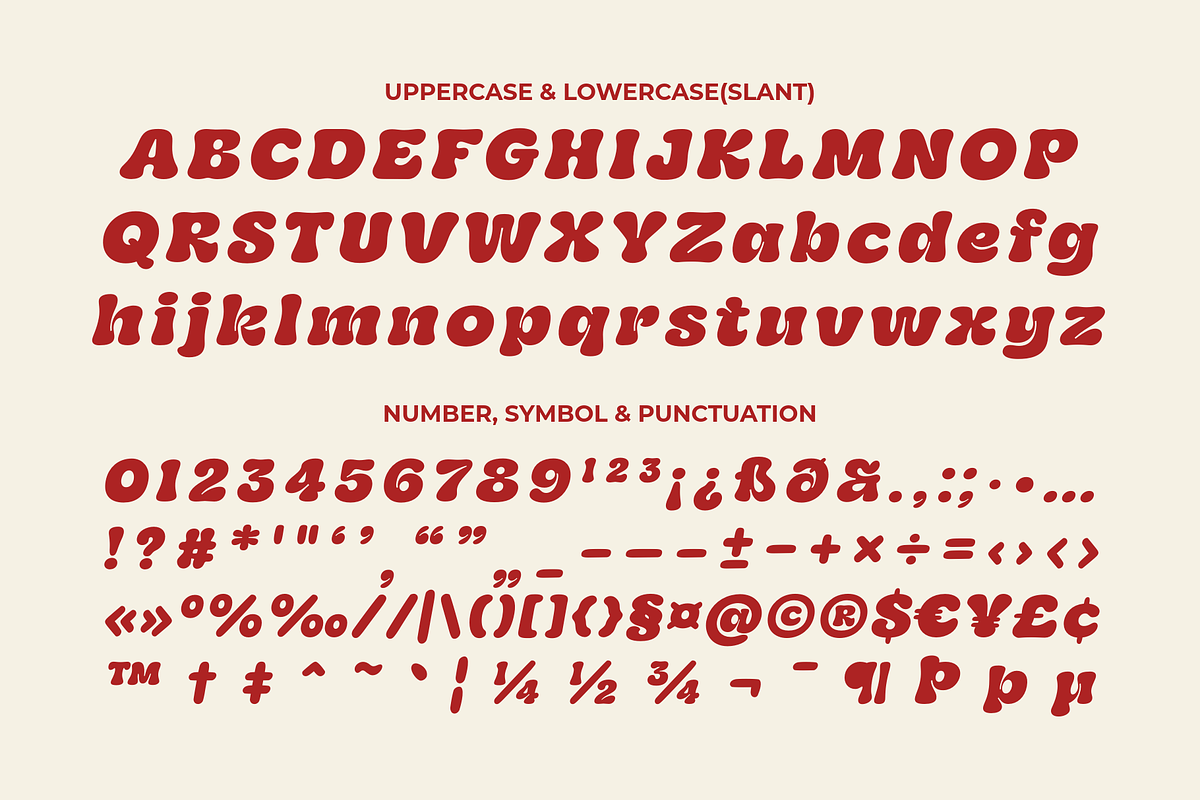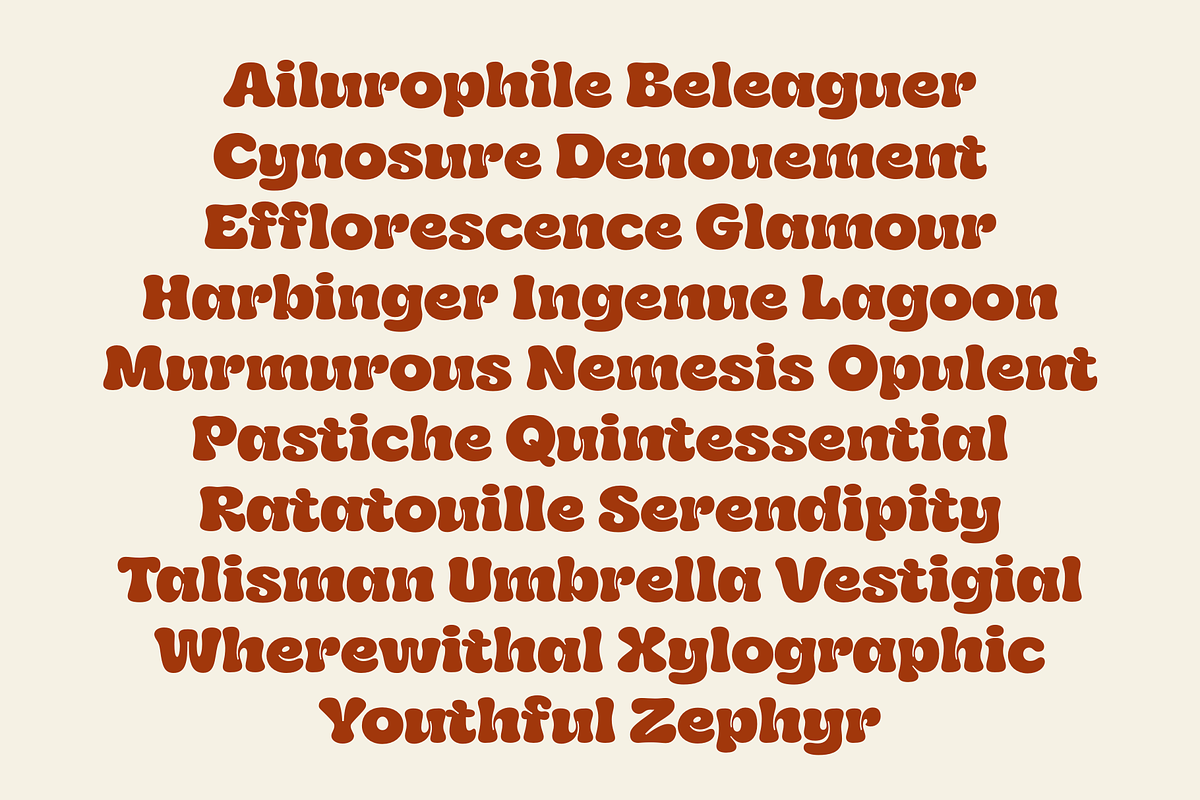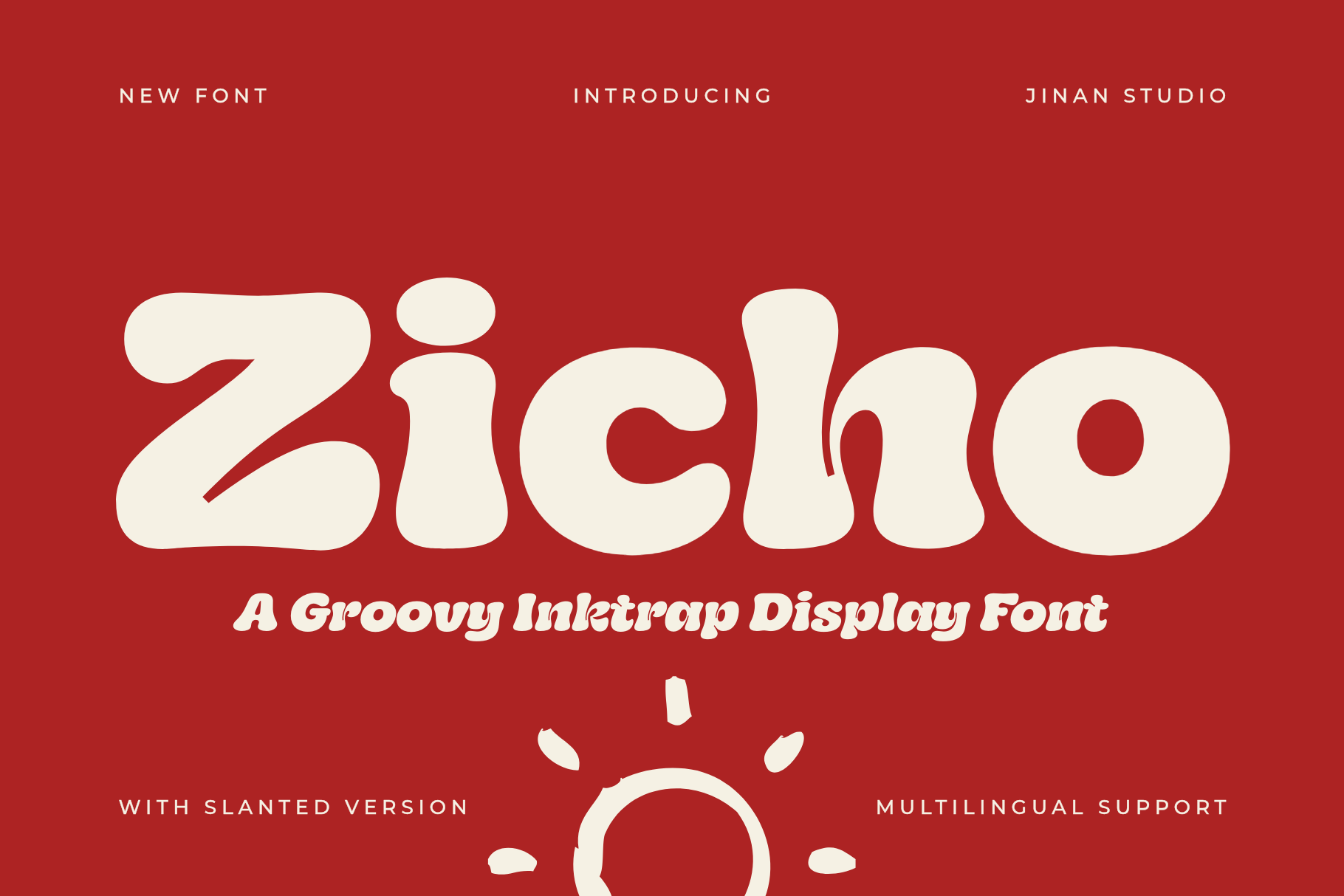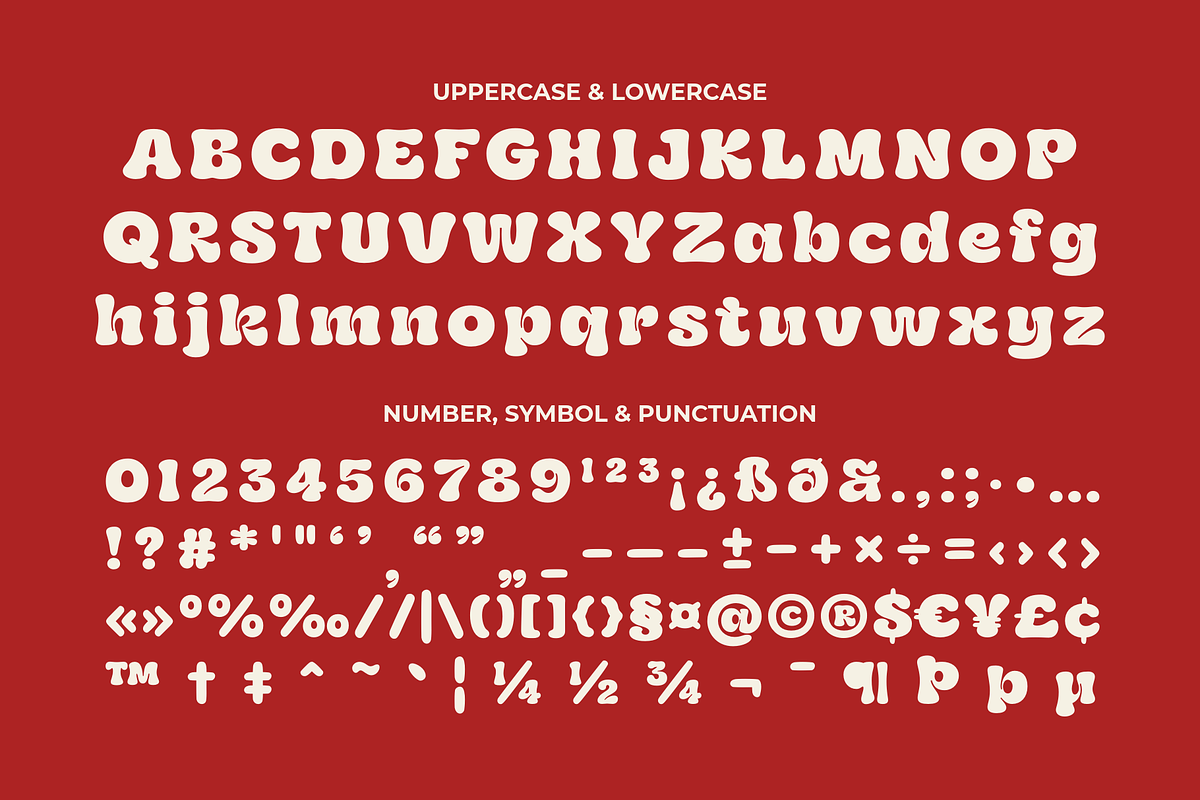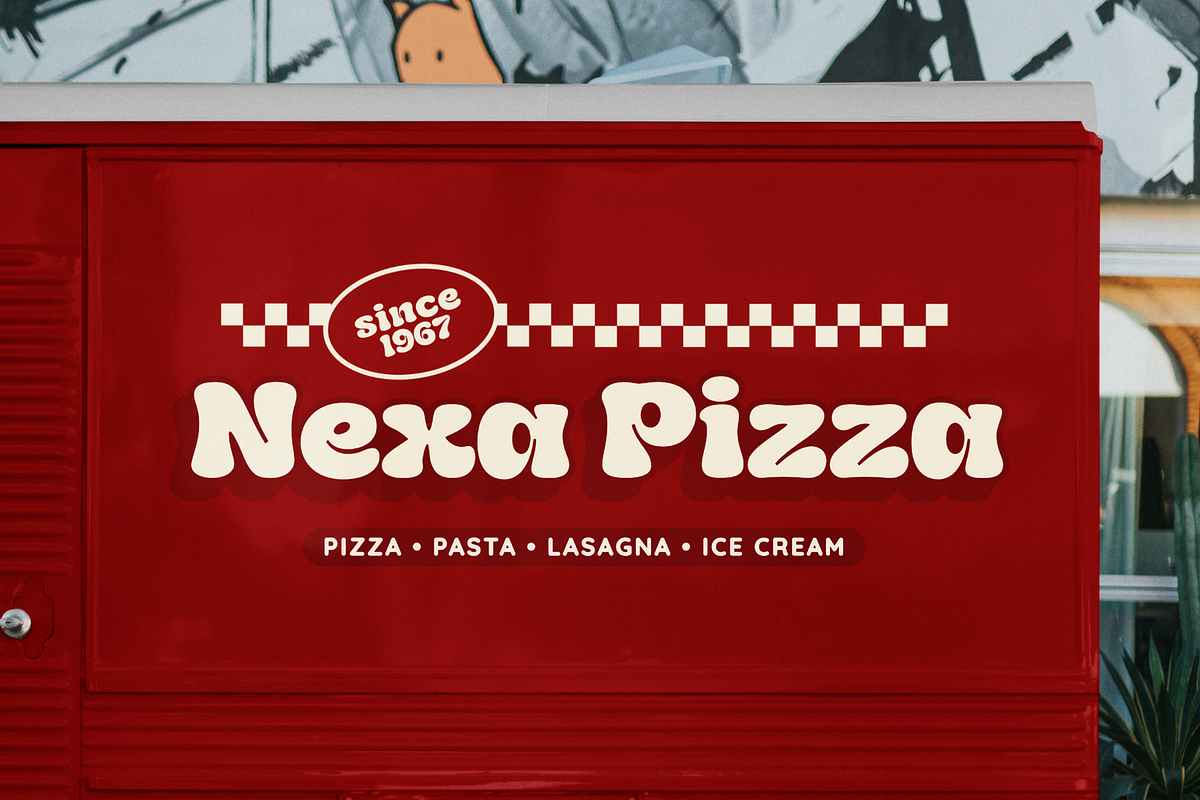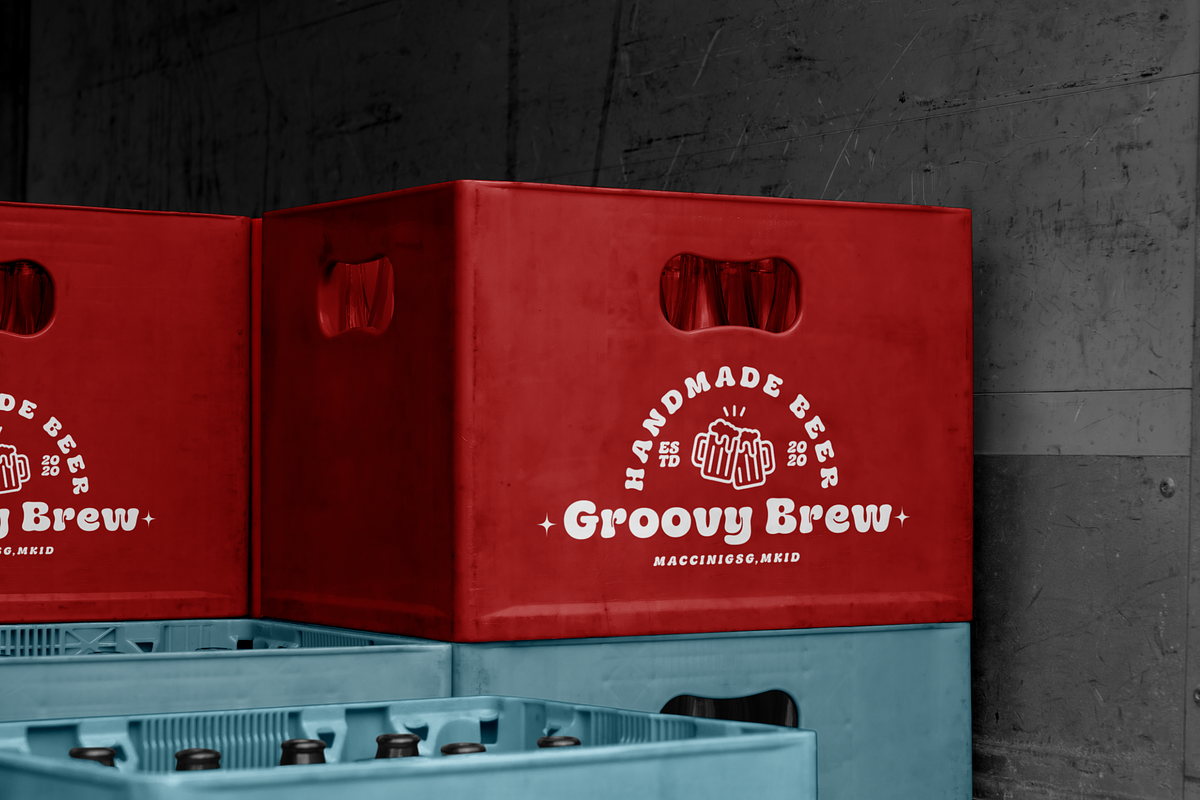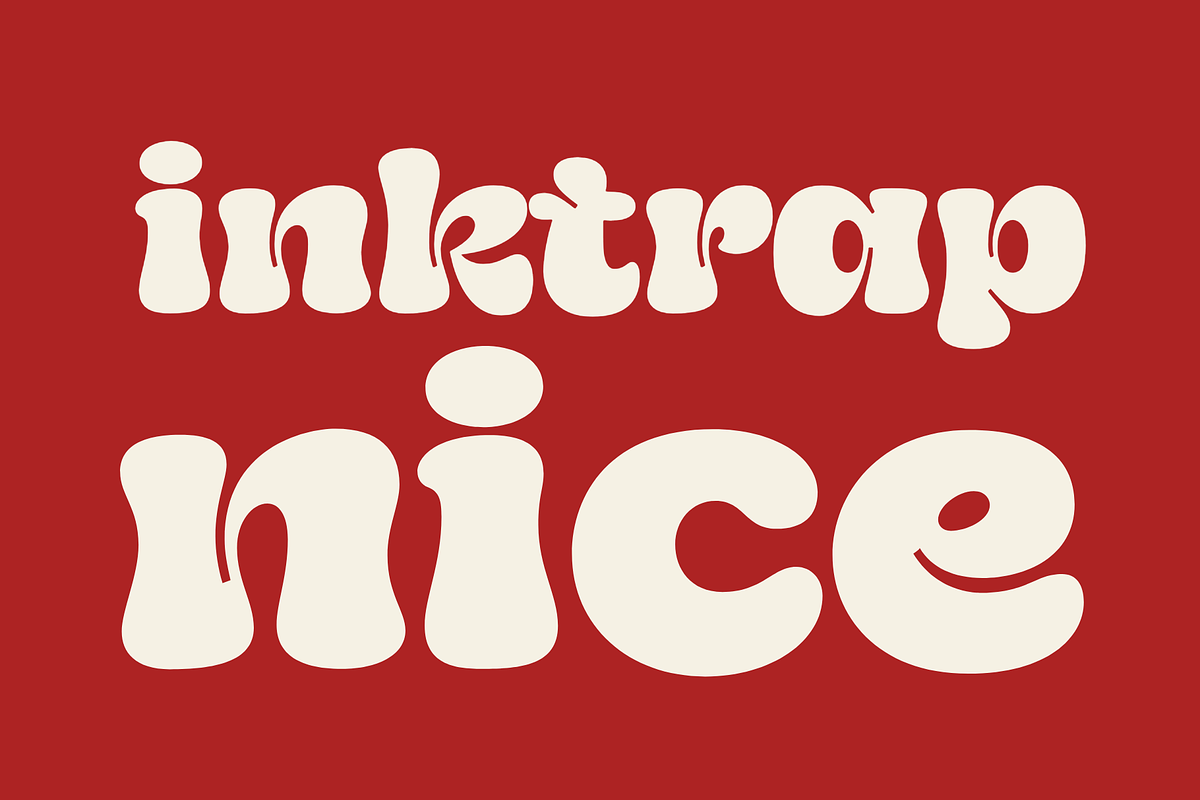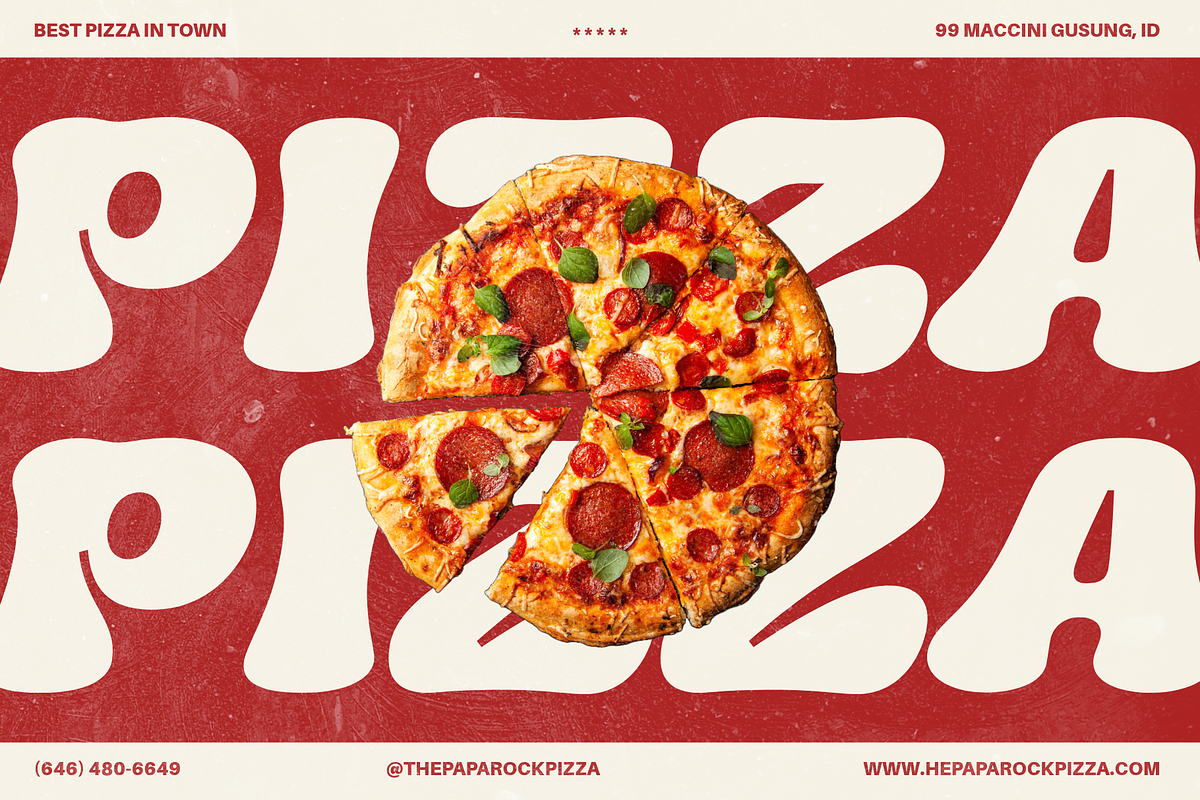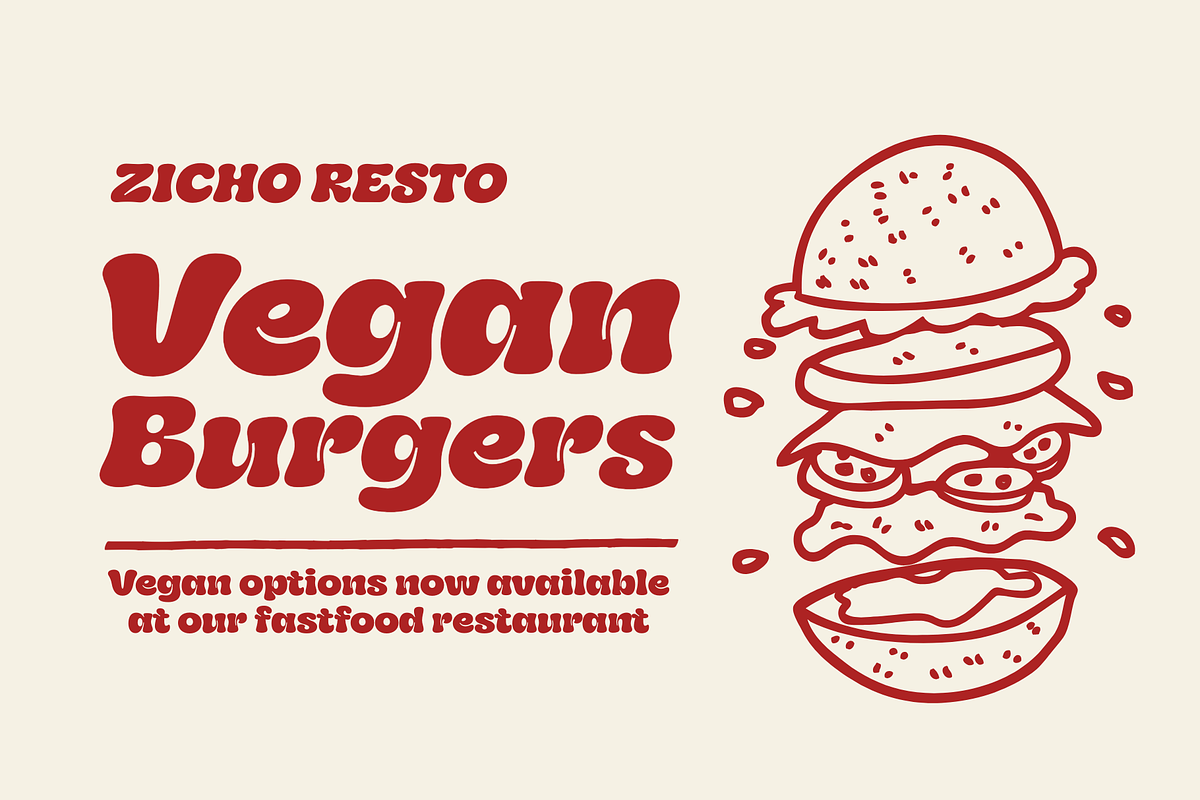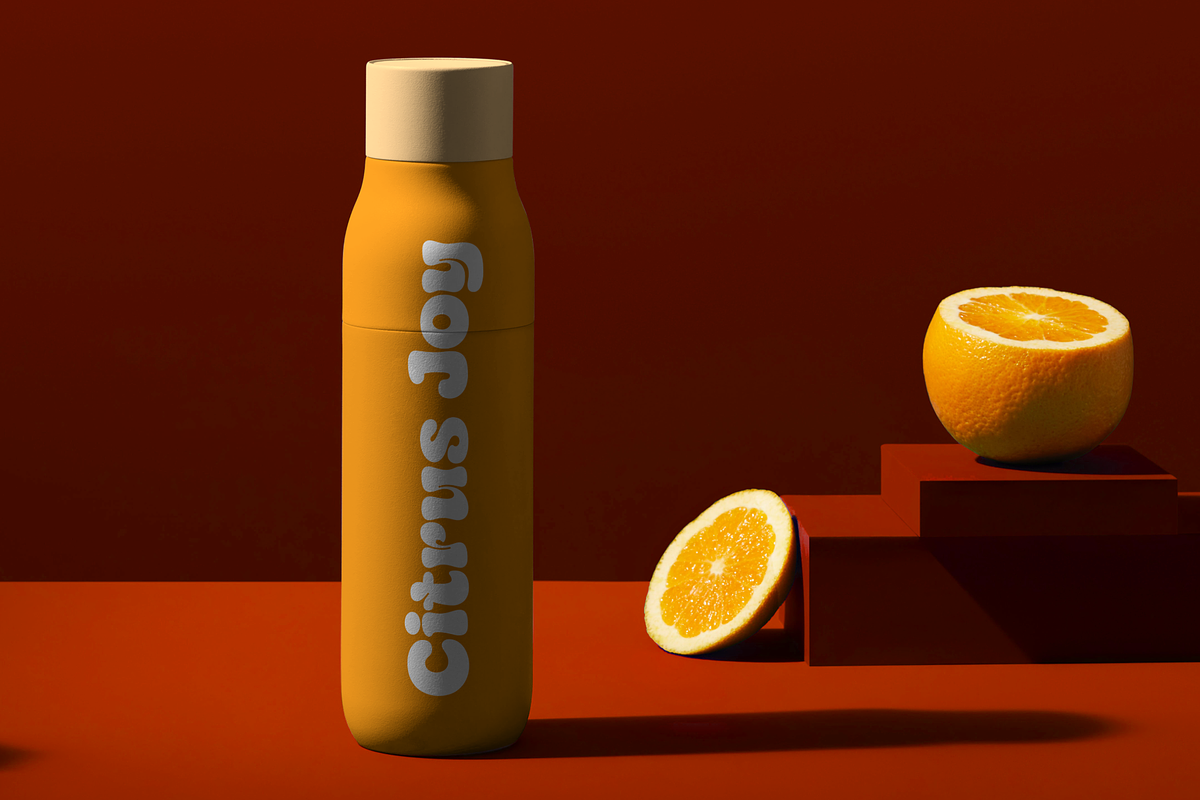
Zicho - A Groovy Inktrap Font
Zicho is a bold groovy inktrap display font inspired by retro 70s typography. Featuring chunky curves, playful shapes, and distinctive inktrap details, this font brings a fun vintage vibe with a modern twist. Perfect for logos, branding, posters, packaging, and eye-catching headlines. Includes regular and slanted styles with multilingual support.
- A set of uppercase and lowercase glyphs
- Number, symbol, and punctuation
- Slant Version